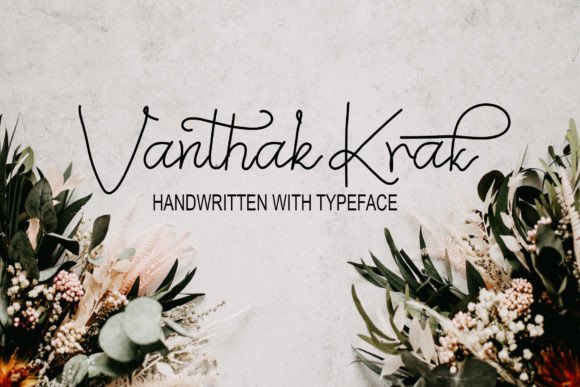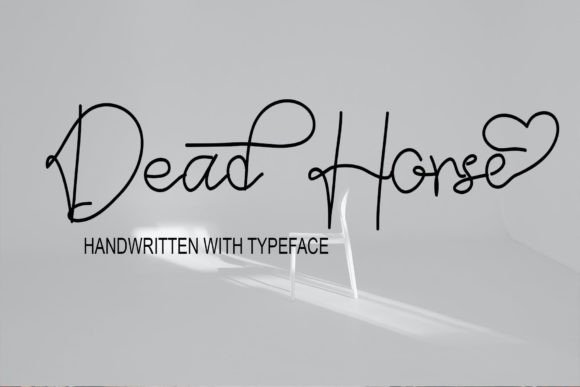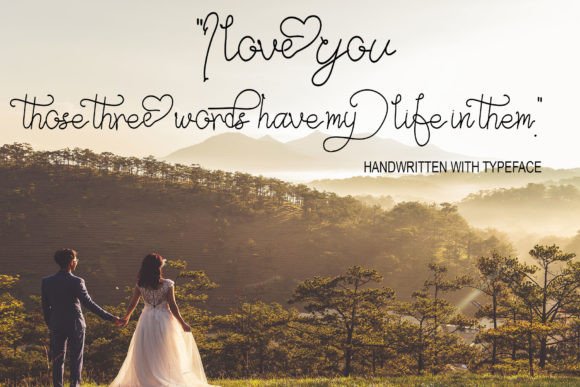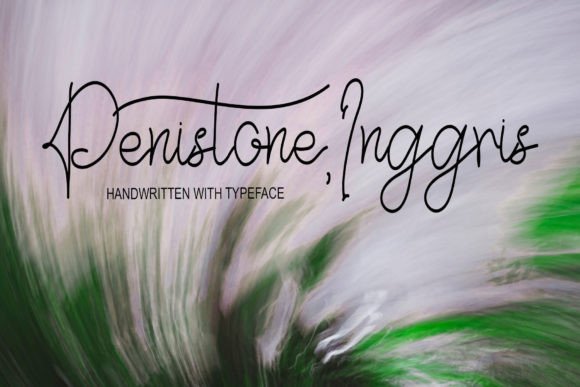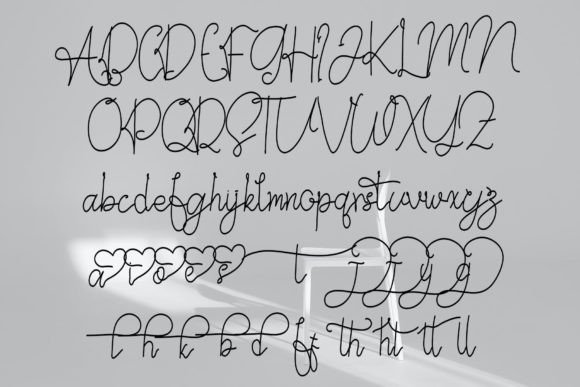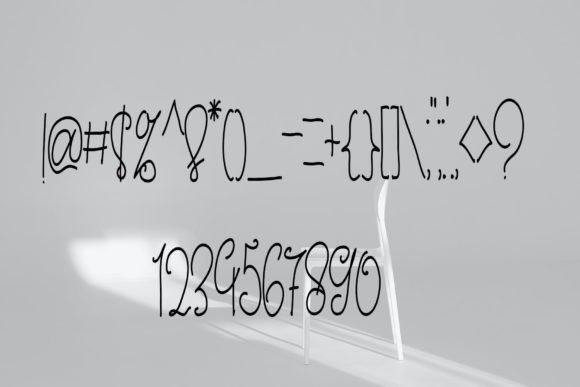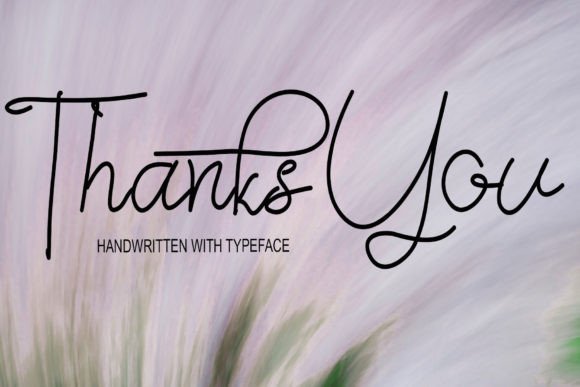
Vanthak Krak Font
About Vanthak Krak Font
“Vanthak Krak” is a quirky and playful handwritten font that exudes a sense of fun and authenticity. With its whimsical and unconventional characters, this font is an ideal choice for a wide range of children’s activities, school projects, and creative endeavors that call for a playful and unique aesthetic.
The charm of “Vanthak Krak” lies in its ability to convey a sense of playfulness and spontaneity through its handwritten characters. The font’s letters possess a quirky and unconventional quality that adds character and a sense of whimsy to your designs. “Vanthak Krak” effortlessly infuses your projects with a fun and lighthearted vibe, making them feel engaging and inviting, especially for children’s activities and school-related materials.
This font is well-suited for projects that aim to capture the attention of children or convey a sense of creativity and play. Whether you’re designing educational materials, crafting interactive games, creating fun and colorful posters, or developing school projects that require a unique and playful touch, “Vanthak Krak” is a font that adds a dash of personality and authenticity.
Incorporating “Vanthak Krak” into your design projects will likely result in outcomes that are not only quirky and fun but also full of character and creativity. Its unconventional style makes it an excellent choice for creating designs that resonate with a sense of spontaneity and uniqueness. Embrace the playful and authentic spirit of “Vanthak Krak” in your next children’s activity or school project, and watch as it adds a delightful and engaging quality to your typography and overall design, making them truly captivating and memorable.